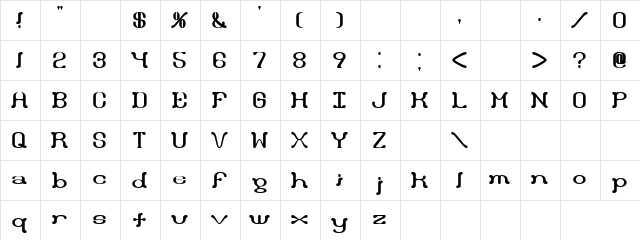
Tweetie Regular
Design Context for Tweetie Typeface
Tweetie is a composed and adaptable typeface that performs quietly and consistently across a wide range of design contexts.